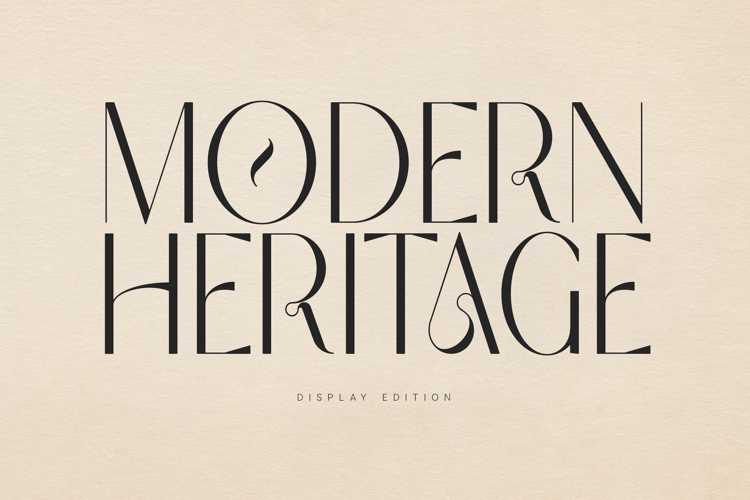
Modern Heritage Elegant Serif Display Font
Modern Heritage is an elegant serif display typeface that blends classic sophistication with contemporary design. Inspired by editorial typography and luxury branding, this font features refined letterforms, graceful curves, and distinctive decorative details that give it a unique personality.
The typeface combines modern minimalism with heritage-inspired elegance, creating a timeless style that works beautifully for premium design projects. Subtle ornamental elements integrated into selected characters add a distinctive touch while maintaining excellent readability and balance.
Modern Heritage is ideal for designers who want to create luxury branding, high-end editorial layouts, fashion logos, and elegant packaging. Its stylish character makes it perfect for projects where typography needs to stand out while still feeling refined and professional.
With full uppercase and lowercase characters, numerals, punctuation, and 87+ language support, the font is ready for international use across both print and digital design.
Perfect for• Fashion branding
• Luxury logos
• Editorial layouts
• Magazine headlines
• Packaging design
• Beauty and cosmetics brands
• Wedding invitations
• Posters and modern typography